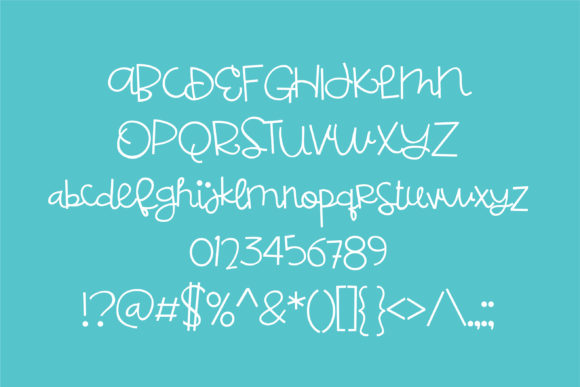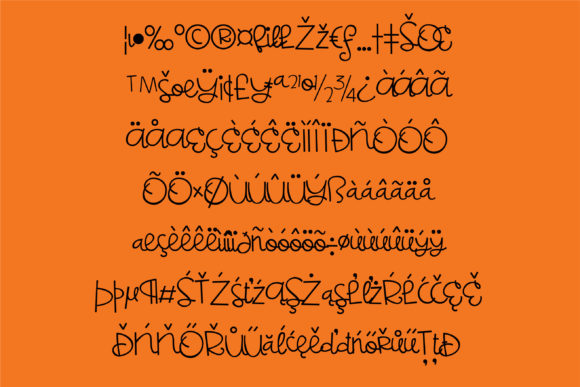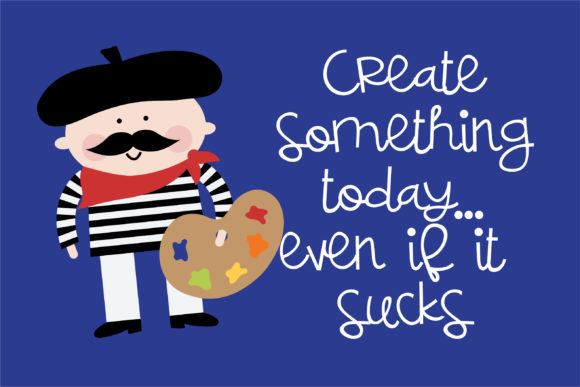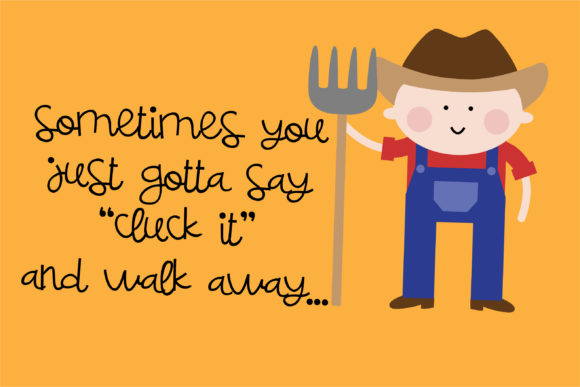
Introduction to Jack Script Font
As a designer, there’s nothing quite like the thrill of discovering a new font that sparks creativity and sets your imagination ablaze. For me, that moment came when I stumbled upon the Jack Script Font – a whimsical hand-crafted script that has a fun and bouncy baseline. Its playful feel instantly drew me in, and I knew I had to learn more.
What I love about Jack Script Font is its versatility – it’s perfect for a wide range of creative projects, from elegant wedding invitations to fun children’s book illustrations. And the best part? It’s available for free download, making it an accessible design resource for designers of all levels.
With its high-quality design and transparent background, Jack Script Font is a valuable addition to any designer’s toolkit. Whether you’re working on a high-end branding project or a low-key social media campaign, this font is sure to bring a touch of whimsy and personality to your design.
Key Features of Jack Script Font
- High-quality, hand-drawn design perfect for creative projects that require a unique touch.
- Comes with a transparent background, allowing for easy customization and layering in design applications.
- Features a large character set, with over 200 glyphs, to accommodate a wide range of languages and characters.
- Suitable for a variety of creative projects, from logos and branding to invitations and typography-based art.
Honest Review: Jack Script Font
I’ve been experimenting with the Jack Script Font for a creative project and I have to say, it’s been a great addition to my design resource collection. The free download option was a major plus, allowing me to test it out without breaking the bank.
One of the standout features of the Jack Script Font is its high quality design. It’s perfect for adding a touch of elegance and sophistication to any project. The transparent background makes it super versatile, allowing me to layer it over different textures and images.
- ✨ Elegant and sophisticated design
- ✨ Transparent background for easy layering
- ⚠️ Limited character set, may not be suitable for longer blocks of text
- ⚠️ Some users may find the script style too ornate or difficult to read
Overall, I’m really impressed with the Jack Script Font. It’s a great addition to any designer’s toolkit and I’m excited to see how it will be used in future projects. Just be aware of its limitations and use it sparingly to get the most out of its unique design.
Jack Script Font is a versatile design resource that can be used in a variety of creative projects. Some common use cases include wedding invitations, party decorations, and social media graphics. To get the most out of Jack Script Font, be sure to experiment with different font sizes, colors, and styles to create a unique and eye-catching design.